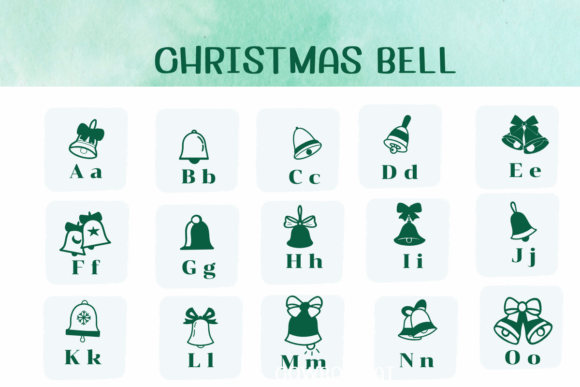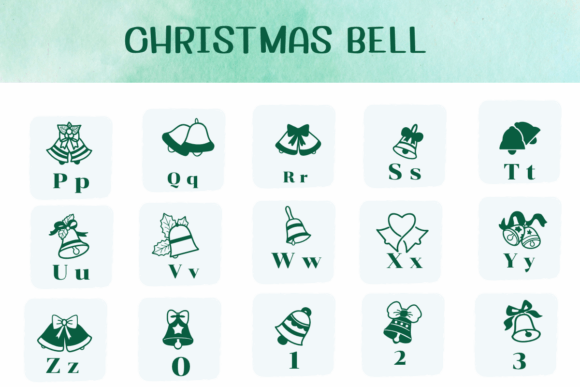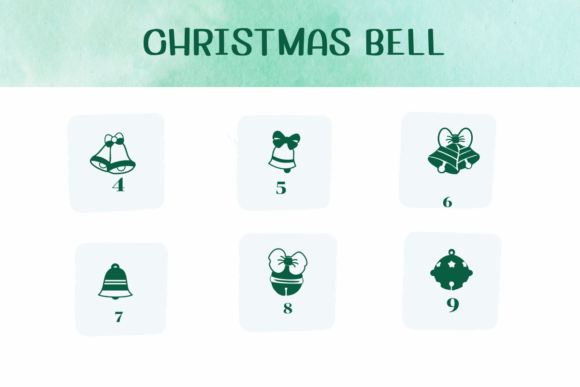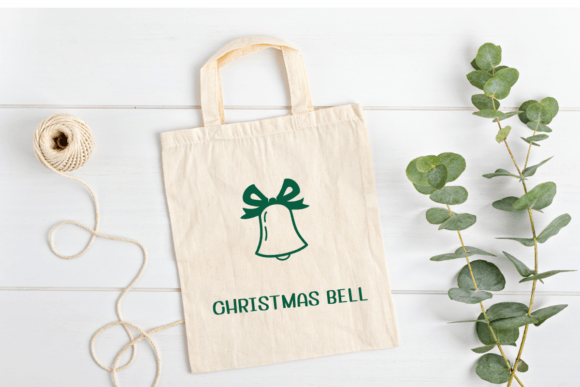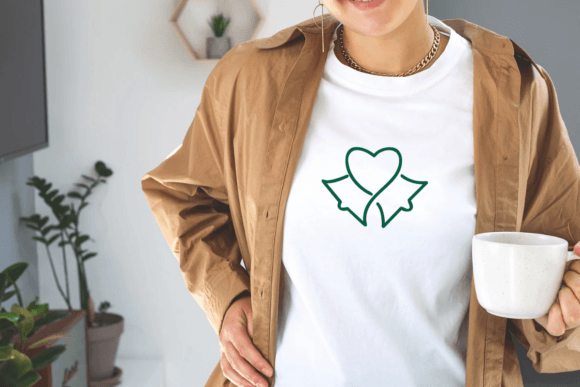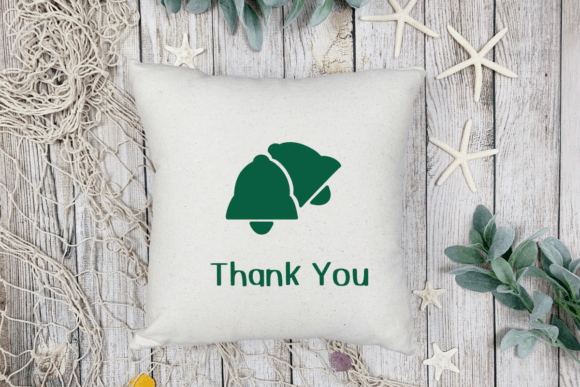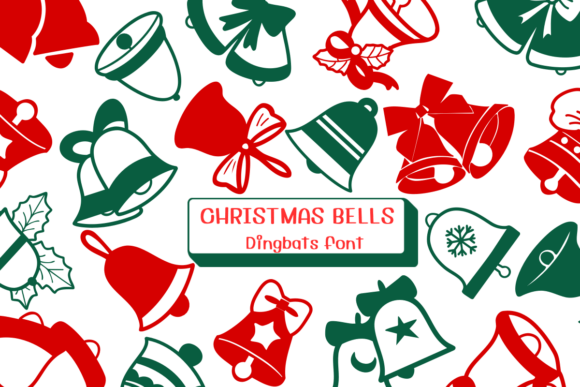
Deck the Halls with the Festive Christmas Bell Font
As the holiday season approaches, designers and crafters are on the lookout for the perfect typography to add a touch of festive cheer to their projects. Look no further than the Christmas Bell Font, a delightful dingbats font that’s sure to jingle its way into your heart. In this article, we’ll explore the magic of Christmas Bell and how it can elevate your creative projects, from wedding invitations to DIY crafts and decorations.
What is Christmas Bell Font?
Christmas Bell is a unique dingbats font that features a festive theme, perfect for the holiday season. Dingbats fonts, also known as symbol fonts, are a type of font that consists of graphical symbols, rather than traditional letters and numbers. Christmas Bell Font takes this concept to the next level with its adorable illustrations of bells, holly, and other festive icons.
How to Use Christmas Bell Font in Your Projects
The versatility of Christmas Bell Font is one of its most appealing features. This font can be used in a wide range of creative projects, including:
• Wedding Invitations: Add a touch of festive elegance to your wedding invitations, save-the-dates, and thank-you cards with Christmas Bell Font.
• DIY Crafts: Use Christmas Bell Font to create personalized gift tags, decorations, and other DIY crafts that are sure to impress.
• Decorations: Create festive signs, banners, and window clings with Christmas Bell Font to deck the halls and get into the holiday spirit.
• Logos and Branding: Add a touch of holiday cheer to your logos, business cards, and marketing materials with Christmas Bell Font.
Tips and Tricks for Using Christmas Bell Font
To get the most out of Christmas Bell Font, here are a few tips and tricks to keep in mind:
• Mix and Match: Combine Christmas Bell Font with other fonts to create a unique and eye-catching design.
• Experiment with Colors: Try out different colors and textures to add depth and interest to your designs.
• Pay Attention to Size: Make sure to adjust the size of your text and graphics to ensure that they’re balanced and visually appealing.
Why Designers and Crafters Love Christmas Bell Font
So, what makes Christmas Bell Font so special? Here are just a few reasons why designers and crafters love this festive font:
• Unique and Festive: Christmas Bell Font is a one-of-a-kind font that’s sure to add a touch of holiday cheer to any project.
• Easy to Use: With its simple and intuitive design, Christmas Bell Font is easy to use, even for those who are new to dingbats fonts.
• Versatile: Whether you’re working on a wedding invitation or a DIY craft, Christmas Bell Font is the perfect choice.
In conclusion, Christmas Bell Font is a festive and versatile dingbats font that’s perfect for designers and crafters looking to add a touch of holiday cheer to their projects. With its unique illustrations and easy-to-use design, this font is sure to become a favorite in your creative toolkit. So why wait? Download Christmas Bell Font today and start creating your own festive masterpieces!
• Q: What type of font is Christmas Bell Font? A: Christmas Bell Font is a dingbats font, featuring graphical symbols rather than traditional letters and numbers.